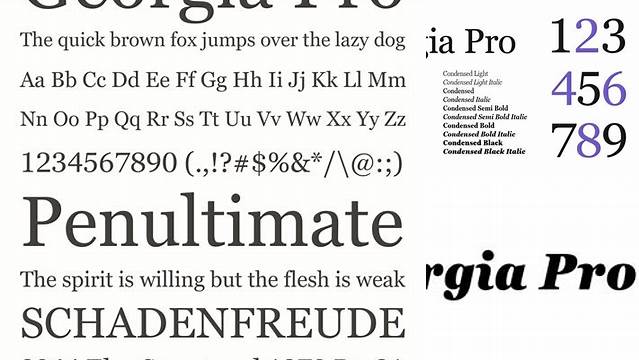
Are you looking for a versatile and elegant font for your next project? Look no further than the Georgia Pro font family! In this comprehensive guide, we'll dive deep into everything you need to know about this fantastic typeface, from its history and characteristics to its best uses and, of course, where you can find a Georgia Pro font family free download.
What is the Georgia Pro Font Family?
The Georgia Pro font family is a serif typeface designed by Matthew Carter in 1993 and commissioned by Microsoft. It was specifically created to be highly legible on screen, even at small sizes. This makes it an excellent choice for body text in websites, articles, and other digital content. But guys, its elegance and readability also make it suitable for print projects like books, magazines, and brochures. The Georgia Pro font family is essentially the upgraded version of the original Georgia font, boasting an expanded character set, refined letterforms, and improved hinting for even better on-screen rendering. This meticulous enhancement ensures that the Pro version delivers a more polished and professional aesthetic across a variety of applications. One of the key features of Georgia Pro is its generous proportions and clear, open counters (the spaces inside the letters). This contributes significantly to its readability, particularly in longer texts. The serifs, the small strokes at the ends of the letterforms, are also carefully crafted to add a touch of classic elegance without sacrificing clarity. The font's design also takes into account the challenges of on-screen display, with subtle adjustments to ensure that the letters remain crisp and well-defined even at smaller sizes and lower resolutions. This focus on legibility is what sets Georgia Pro apart and makes it a favorite among designers and typographers who prioritize readability. Additionally, Georgia Pro includes a robust set of weights and styles, from regular and italic to bold and bold italic, providing designers with a versatile toolkit for creating visual hierarchy and adding emphasis within their designs. This flexibility allows the font to be used in a wide range of applications, from headlines and subheadings to body text and captions, ensuring a consistent and cohesive typographic voice throughout a project. Furthermore, the expanded character set in Georgia Pro includes a variety of special characters, symbols, and ligatures, enhancing its functionality and making it suitable for multilingual typesetting and specialized design applications. This comprehensive character set ensures that designers have all the tools they need to create professional-quality typography, regardless of the specific requirements of their project. Overall, Georgia Pro is a testament to Matthew Carter's skill and expertise in typeface design, combining legibility, elegance, and versatility in a way that makes it a timeless choice for designers and publishers alike. Whether you're working on a website, a print publication, or any other type of project, Georgia Pro is a reliable and stylish font that will help you communicate your message effectively.
Key Characteristics of Georgia Pro
Let's break down what makes Georgia Pro so special. Its key characteristics include:
- Readability: As we mentioned, this is paramount. Georgia Pro is designed for easy reading, even in long blocks of text.
- Elegance: The serifs give it a classic and sophisticated feel. It's not just a workhorse; it's a beautiful font, guys!
- Versatility: It works well in both print and digital formats. From websites to books, Georgia Pro can handle it all.
- Distinguished Serifs: The serifs in Georgia Pro are not just decorative; they are carefully designed to enhance readability and add a touch of sophistication. These serifs are more pronounced than those in some other serif fonts, which helps to guide the reader's eye across the page and creates a visual rhythm that makes reading more comfortable. The subtle variations in the thickness and shape of the serifs also contribute to the font's overall elegance and timeless appeal. In addition to their aesthetic qualities, the serifs in Georgia Pro also play a functional role in improving the legibility of the text, especially at smaller sizes. By providing a clear distinction between the different letterforms, the serifs help to prevent the letters from blurring together, ensuring that the text remains crisp and easy to read even on screens with lower resolutions. This attention to detail in the design of the serifs is one of the key factors that make Georgia Pro such a popular choice for body text in both print and digital applications.
- Open Counters: The open counters, or the spaces inside the letters, are another important aspect of Georgia Pro's design. These open spaces help to prevent the letters from appearing cramped or crowded, which can improve readability, especially in longer texts. The generous proportions of the open counters also contribute to the font's overall legibility, allowing the reader's eye to easily distinguish between the different letterforms. The open counters in Georgia Pro are particularly beneficial in on-screen reading, where the limited resolution of the screen can sometimes make it difficult to read small text. By providing ample white space within the letters, the open counters help to ensure that the text remains clear and legible, even at smaller sizes. This is one of the reasons why Georgia Pro is such a popular choice for websites, e-books, and other digital content. In addition to their functional benefits, the open counters in Georgia Pro also contribute to the font's overall aesthetic appeal, giving it a sense of airiness and elegance. The open spaces within the letters help to balance the heavier strokes and serifs, creating a harmonious and visually pleasing design that is both timeless and versatile. Whether used in print or digital applications, the open counters in Georgia Pro play a crucial role in enhancing the font's readability and aesthetic qualities.
- Clear Letterforms: The letterforms in Georgia Pro are meticulously crafted to ensure clarity and legibility. Each character is designed with precision and attention to detail, resulting in a typeface that is both functional and aesthetically pleasing. The clear and well-defined letterforms make Georgia Pro an excellent choice for a wide range of applications, from body text in books and articles to headlines and subheadings in websites and magazines. One of the key features of the letterforms in Georgia Pro is their consistent stroke weight, which helps to create a sense of visual harmony and balance. The strokes are neither too thick nor too thin, striking the perfect balance between legibility and elegance. This consistency in stroke weight also helps to ensure that the text remains readable even at smaller sizes, making Georgia Pro a versatile choice for a variety of design projects. In addition to their consistent stroke weight, the letterforms in Georgia Pro also feature generous proportions and open counters, which further enhance their legibility. The open counters, or the spaces inside the letters, help to prevent the letters from appearing cramped or crowded, which can improve readability, especially in longer texts. The generous proportions of the letterforms also contribute to the font's overall visual appeal, giving it a sense of airiness and elegance. Furthermore, the letterforms in Georgia Pro are carefully designed to work well together, creating a cohesive and visually pleasing typographic system. The spacing between the letters is carefully considered, ensuring that the text flows smoothly and evenly. This attention to detail in the design of the letterforms is one of the key factors that make Georgia Pro such a popular choice among designers and typographers.
Best Uses for Georgia Pro
So, where does Georgia Pro really shine? Here are a few ideas:
- Website Body Text: Its readability makes it ideal for long articles and website content.
- Books and Magazines: Georgia Pro's elegance lends itself well to print publications.
- E-books: Easy on the eyes for digital reading.
- Formal Documents: Reports, letters, and other professional communications can benefit from its classic look.
- Long-form Content: Georgia Pro truly shines when used for extended reading experiences, thanks to its focus on legibility and reader comfort. Its carefully crafted letterforms and generous spacing prevent eye strain, making it ideal for articles, blog posts, and any other type of content that requires sustained attention. The font's subtle elegance also adds a touch of sophistication to the reading experience, elevating the overall presentation of the text. When choosing a font for long-form content, it's essential to prioritize readability above all else. A visually striking font may initially grab attention, but if it's difficult to read for extended periods, readers are likely to become fatigued and disengaged. Georgia Pro, on the other hand, is designed specifically for legibility, ensuring that readers can focus on the content without being distracted by the typeface itself. Its balanced proportions, open counters, and well-defined serifs work together to create a comfortable and enjoyable reading experience, even for lengthy texts. In addition to its functional benefits, Georgia Pro's classic aesthetic makes it a versatile choice for a wide range of topics and genres. Whether you're writing about history, science, literature, or current events, Georgia Pro will convey your message with clarity and professionalism. Its understated elegance ensures that the font never overshadows the content, allowing your words to take center stage. Furthermore, Georgia Pro's availability across various platforms and devices makes it a reliable choice for digital publications. Its consistent rendering ensures that readers will have a consistent and enjoyable reading experience, regardless of the device they're using. This is particularly important for e-books and online articles, where readers may be accessing the content on a variety of screens and devices. Overall, Georgia Pro is an excellent choice for long-form content, offering a perfect blend of readability, elegance, and versatility. Its thoughtful design and meticulous craftsmanship make it a font that you can rely on to deliver a comfortable and engaging reading experience for your audience.
- Projects Requiring a Professional Touch: Need to convey authority and trustworthiness? Georgia Pro is a solid choice. Its refined appearance and classic design evoke a sense of professionalism and reliability, making it an excellent choice for projects that require a touch of formality and sophistication. Whether you're creating a corporate report, a legal document, or a marketing brochure, Georgia Pro will help you to communicate your message with clarity and credibility. The font's clean lines and balanced proportions convey a sense of order and precision, while its subtle elegance adds a touch of refinement. This combination of professionalism and sophistication makes Georgia Pro a versatile choice for a wide range of projects, from formal communications to marketing materials. One of the key reasons why Georgia Pro is so effective in conveying a professional image is its strong emphasis on legibility. The font is designed to be easy to read, even at small sizes, ensuring that your message will be clearly communicated to your audience. This is particularly important in professional contexts, where clarity and accuracy are paramount. Georgia Pro's clear letterforms and generous spacing prevent eye strain and ensure that readers can focus on the content without being distracted by the typeface itself. In addition to its legibility, Georgia Pro's classic design also contributes to its professional appeal. The font's timeless aesthetic ensures that it will remain relevant and stylish for years to come, making it a reliable choice for projects that require a long-lasting impression. Georgia Pro's subtle elegance also helps to elevate the overall presentation of your work, conveying a sense of quality and attention to detail. Furthermore, Georgia Pro's availability across various platforms and devices makes it a practical choice for professional projects. Its consistent rendering ensures that your documents will look the same regardless of the device they are viewed on, maintaining a consistent and professional image. This is particularly important in today's digital age, where documents are often shared and accessed on a variety of devices and platforms. Overall, Georgia Pro is an excellent choice for projects that require a professional touch. Its clean lines, balanced proportions, and emphasis on legibility make it a reliable and stylish choice for a wide range of applications. Whether you're creating a corporate report, a legal document, or a marketing brochure, Georgia Pro will help you to communicate your message with clarity, credibility, and sophistication.
Georgia Pro Font Family: A Worthwhile Investment
While a Georgia Pro font family free download might be difficult to come by legally, consider the value this font brings to your projects. Its readability, elegance, and versatility make it a worthwhile investment for any designer or content creator. So, weigh your options, explore the alternatives, but don't underestimate the power of a well-crafted typeface like Georgia Pro! Remember guys, choosing the right font can make all the difference in how your message is received. It's not just about aesthetics; it's about creating a clear, engaging, and professional experience for your audience. And that, my friends, is priceless. When you're thinking about fonts, it's tempting to go for something flashy or trendy, but sometimes the classics are classic for a reason. Georgia Pro is one of those fonts. It's been around for a while, but it's still just as relevant and effective as it ever was. That's because it's built on solid principles of design, with a focus on readability and clarity. It's the kind of font that fades into the background and lets your content shine, which is exactly what you want in most situations. Think about it – when you're reading a book or an article, you don't want to be distracted by the font itself. You want to be able to focus on the words and the message they're conveying. Georgia Pro helps you do that. It's like a good pair of glasses – you don't even notice you're wearing them because they're doing their job so well. Of course, that doesn't mean Georgia Pro is boring. It has a subtle elegance and sophistication that makes it suitable for a wide range of projects, from formal documents to websites to marketing materials. It's a versatile font that can adapt to different styles and tones, which is why it's such a popular choice among designers and content creators. And while it may not be free, it's definitely worth considering as an investment in your work. A good font can elevate your designs and make your content more engaging, which can ultimately lead to better results. So, if you're looking for a reliable, readable, and versatile font, Georgia Pro is definitely one to consider. It's a classic for a reason, and it's likely to remain a popular choice for many years to come. Just remember to get it from a legitimate source, guys!